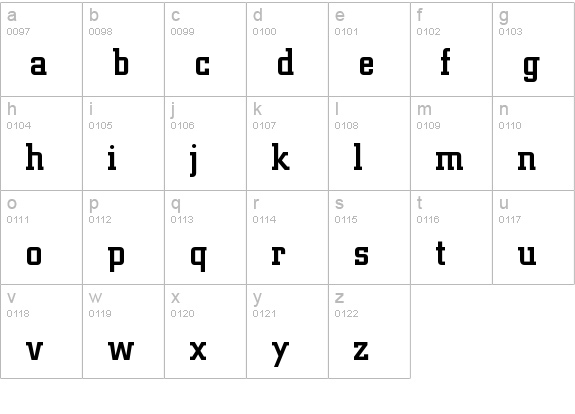
CityDEEMed Font Details
CityDEEMed is a modern and stylish font that embodies the dynamic energy of a bustling metropolis. With its sleek lines and contemporary design, this font is perfect for adding a touch of urban flair to any project. Whether you're creating a poster for a trendy event or designing a cutting-edge website, CityDEEMed will make your text pop with personality. Best of all, CityDEEMed is available for free download at FontsMarket.com. So you can easily access this versatile font and start using it in your projects right away. Don't miss out on the opportunity to elevate your designs with the bold and captivating CityDEEMed font.